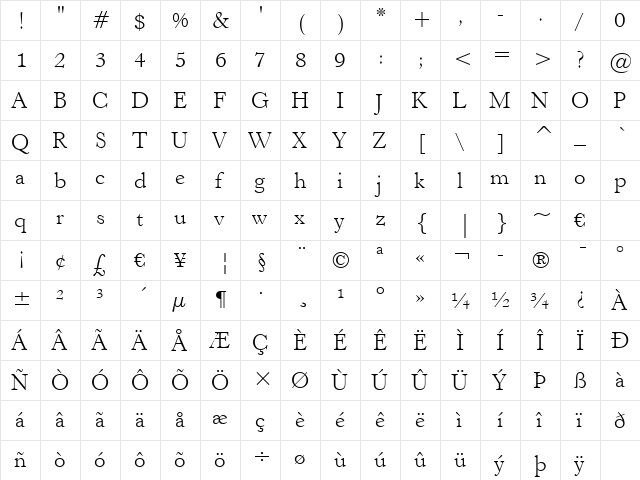
Revivl555 Lt BT Light
Design Context for Revivl555 Lt BT Typeface
Revivl555 Lt BT offers clean, dependable letterforms without strong stylistic allegiance, making it a practical choice for designers who need flexibility. Its slender proportions lend an understated elegance to any composition.